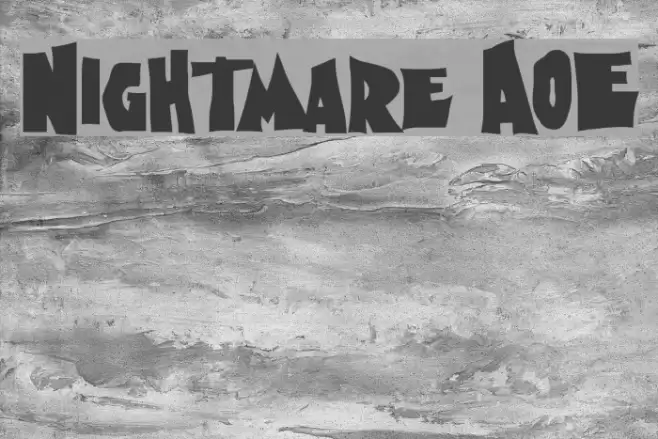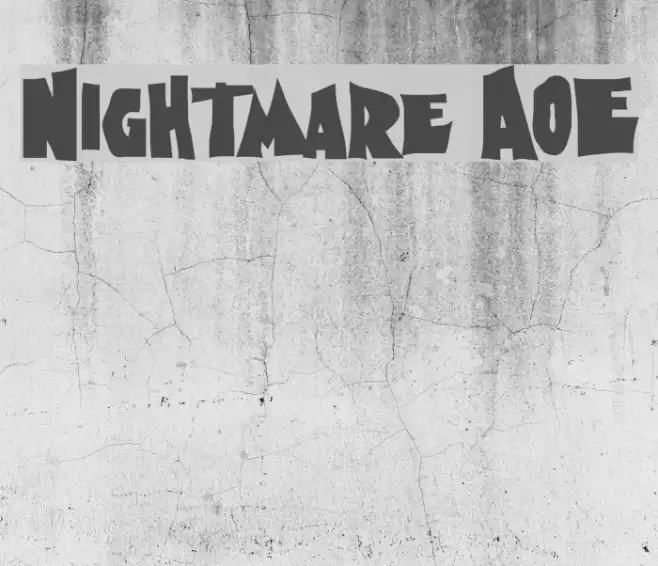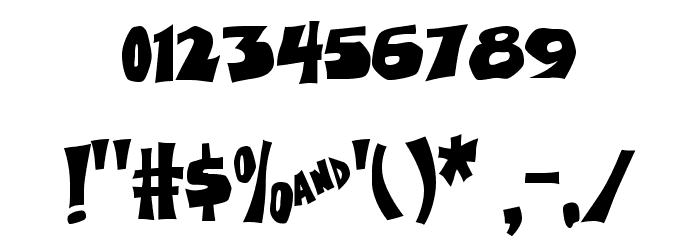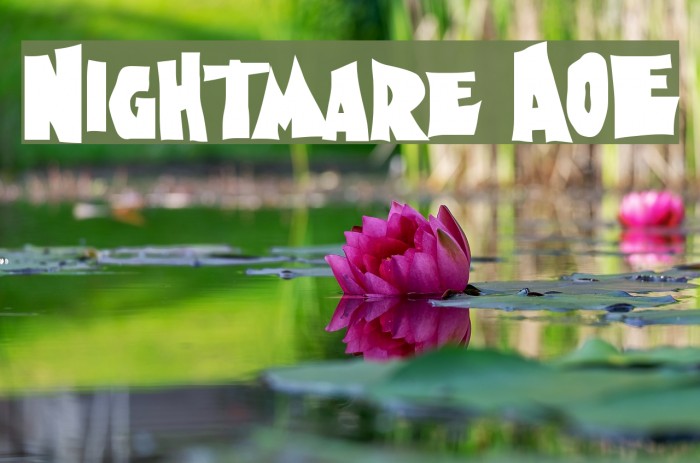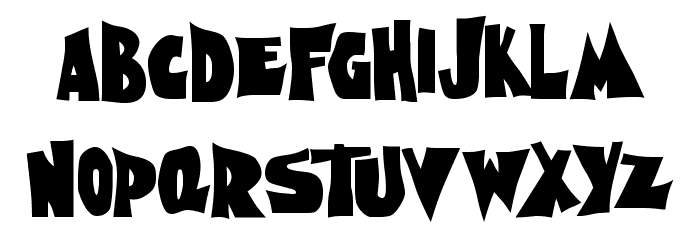
Nightmare AOE Font
Nightmare AOE Description
This font features a bold and jagged design, reminiscent of horror and Halloween themes. The characters have an irregular, sharp-edged appearance, giving them a dynamic and unsettling look. The uppercase and lowercase letters maintain a consistent style, with exaggerated angles and varying widths that create a sense of movement. The numbers and special characters follow the same aesthetic, ensuring a cohesive appearance across all glyphs. This font is ideal for creating eye-catching titles and graphics that require a dramatic and eerie effect.
A bold, jagged font with a horror-themed, dynamic style from Decorative fonts.
- Proposed Projects: Perfect for Halloween posters, horror movie titles, themed event invitations, and spooky graphic designs.